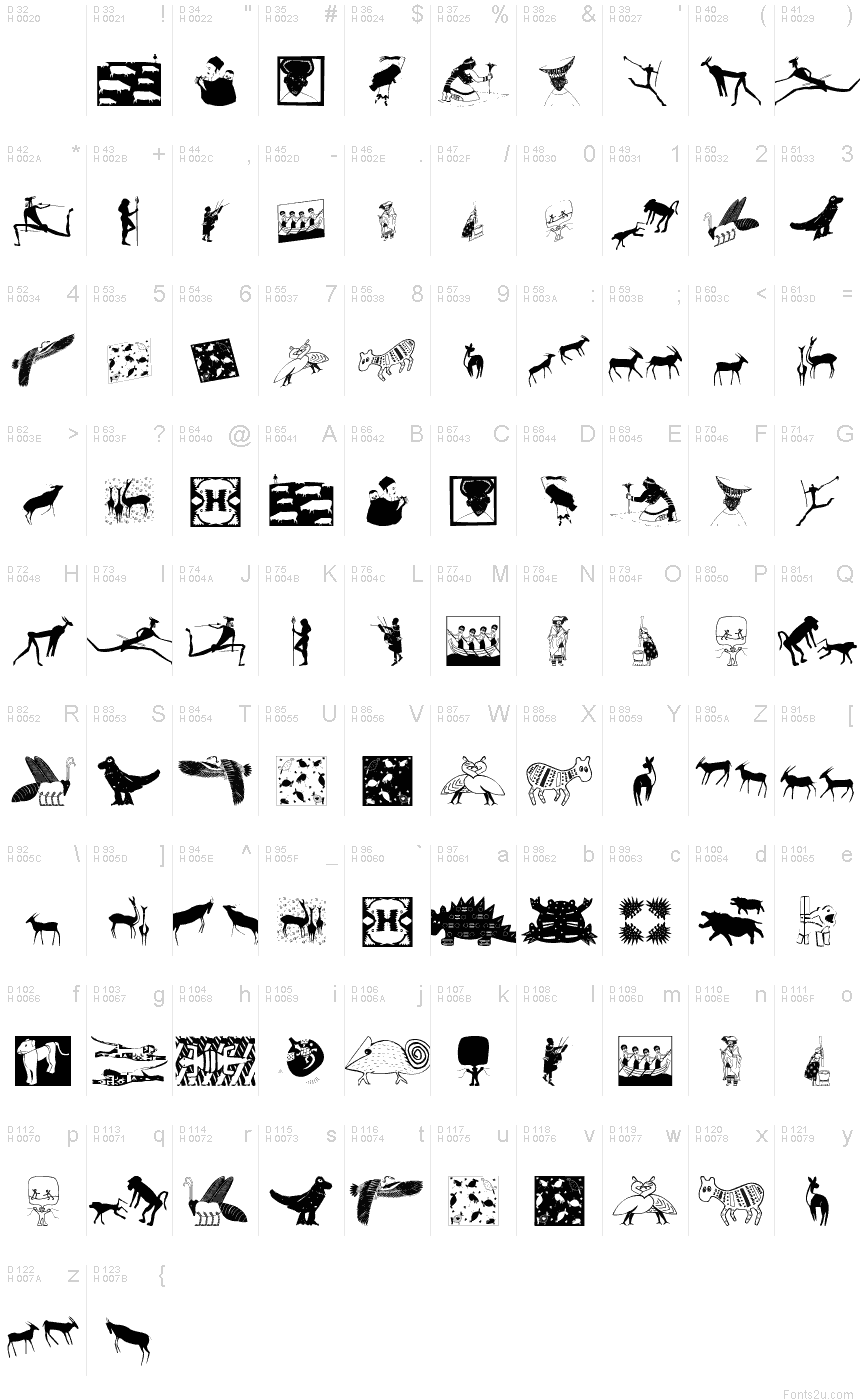
African Queens by M. Klein is a free African wildlife dingbat font built from lively animal and nature symbols. The collection mixes solid silhouettes with rough, hand-drawn figures and patterned bodies. Its marks feel much like carved or painted pictograms.
Wildlife, safari travel, and African-inspired storytelling provide the clearest context for these symbols, especially in children's publishing, museum graphics, event posters, and travel campaigns. Their strongest role is in illustrated educational material, where the varied creatures and patterned pictograms can become part of the subject matter instead of serving as ordinary decoration.